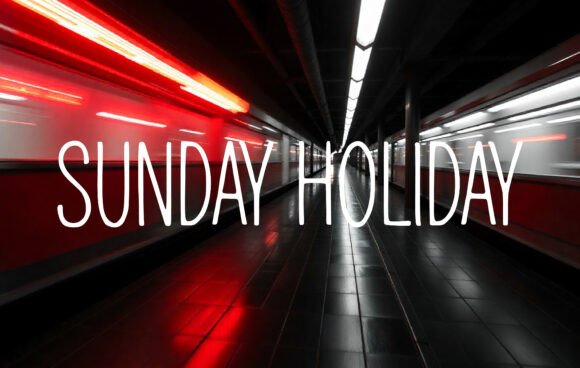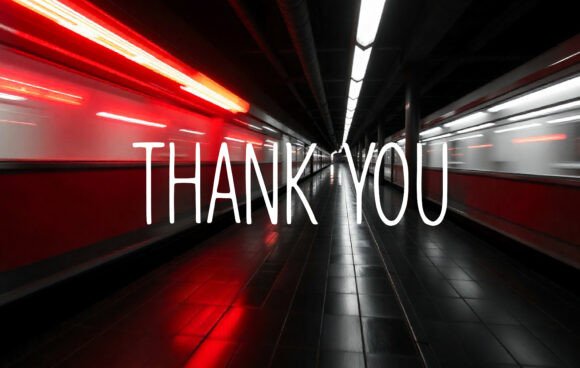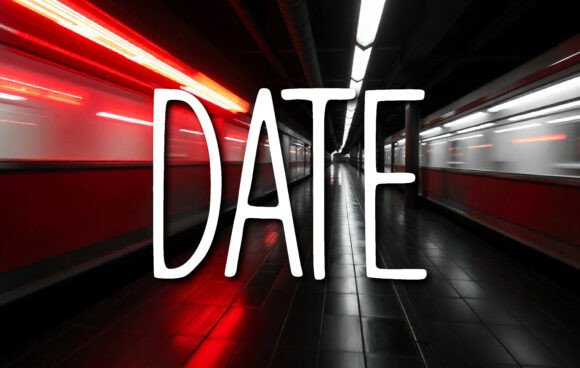
Introducing Date Font: The Ultimate Choice for Modern Designers
In the world of typography, fonts play a crucial role in conveying the tone and personality of a brand or design. For designers and crafters looking for a modern and sleek font, Date Font is an excellent choice. This ultra-slim, condensed font is designed to emphasize verticality and minimalist elegance, making it perfect for a wide range of applications.
Key Features of Date Font
Date Font boasts several key features that set it apart from other fonts. Its tall, narrow letterforms with clean monolinear strokes and rounded terminals give it an airy and contemporary personality. The font’s highly condensed structure allows for impactful large-scale use in tight spaces, making it an excellent choice for modern movie posters, fashion editorial headers, and minimalist social media content.
The design characteristics of Date Font are what make it truly unique. The font features:
- Tall and narrow letterforms: Giving the font a sleek and modern look, perfect for headlines and titles.
- Clean monolinear strokes: Providing a sense of elegance and sophistication.
- Rounded terminals: Adding a touch of softness and approachability.
- Highly condensed structure: Allowing for maximum impact in tight spaces.
Use Cases for Date Font
Date Font is an incredibly versatile font that can be used in a variety of applications, including:
- Movie Posters: The font’s bold and condensed structure makes it perfect for grabbing attention in movie posters.
- Fashion Editorial Headers: Date Font’s sleek and modern look makes it an excellent choice for fashion editorial headers.
- Minimalist Social Media Content: The font’s clean and elegant design makes it perfect for minimalist social media content.
- Branding and Advertising: Date Font’s unique personality makes it an excellent choice for branding and advertising campaigns.
Benefits of Using Date Font
Using Date Font in your designs offers several benefits, including:
- Improved Readability: The font’s clean and elegant design makes it easy to read, even in small sizes.
- Enhanced Visual Appeal: Date Font’s unique personality and sleek design make it perfect for grabbing attention.
- Increased Versatility: The font’s highly condensed structure allows for use in a wide range of applications.
Tips for Using Date Font Effectively
To get the most out of Date Font, follow these tips:
- Use it sparingly: Date Font’s bold and condensed structure makes it perfect for headlines and titles, but use it sparingly to avoid overwhelming the reader.
- Pair it with complementary fonts: Date Font pairs well with clean and elegant fonts, such as sans-serif fonts.
- Experiment with different sizes: The font’s highly condensed structure makes it perfect for use in a variety of sizes, from small captions to large headlines.
Date Font is an excellent choice for designers and crafters looking for a modern and sleek font. Its unique personality, clean design, and highly condensed structure make it perfect for a wide range of applications. By following the tips outlined above, you can use Date Font to create stunning designs that grab attention and leave a lasting impression.